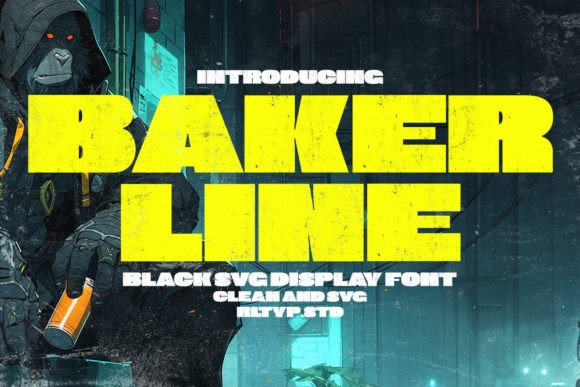
Bakerline Font: The Epitome of Boldness and Clarity
In the world of typography, fonts play a crucial role in conveying messages, expressing emotions, and creating a lasting impression. Among the numerous fonts available, Bakerline Font stands out for its boldness, clarity, and versatility. This sans serif typeface has been meticulously crafted to make a powerful statement, making it an ideal choice for designers, artists, and marketers. In this article, we’ll explore the features, benefits, and applications of Bakerline Font, and why it’s becoming a popular choice in the design community.
Design and Features
Bakerline Font is available in two striking variations: black and extra bold weights. This allows designers to choose the perfect level of boldness for their projects, ensuring that their message is conveyed with impact. The font’s sans serif design provides a clean and modern aesthetic, making it perfect for a wide range of applications, from digital media to print materials.
One of the unique features of Bakerline Font is its textured SVG and solid variations. The textured SVG version offers a dynamic, layered look, while the solid version provides a sleek, flat design. This versatility allows designers to experiment with different styles, ensuring that their project stands out from the crowd.
Inclusion of Lowercase Characters
Bakerline Font includes lowercase characters, which is a significant advantage for designers. The inclusion of lowercase letters ensures that the font can be seamlessly integrated into various creative projects, from body text to headings. This feature also makes it easier to use Bakerline Font in combination with other fonts, creating a cohesive and harmonious design.
Benefits of Using Bakerline Font
So, why should designers choose Bakerline Font for their projects? Here are some benefits of using this versatile typeface:
- Bold and Eye-Catching: Bakerline Font is designed to make a statement. Its bold and extra bold weights ensure that your message is conveyed with impact, grabbing the attention of your audience.
- Versatility: The font’s textured SVG and solid variations offer a range of design possibilities, allowing you to experiment with different styles and effects.
- Modern Aesthetic: Bakerline Font’s sans serif design provides a clean and modern look, making it perfect for contemporary designs, from websites to social media graphics.
- Easy Integration: The inclusion of lowercase characters ensures that Bakerline Font can be seamlessly integrated into various creative projects, providing a cohesive and harmonious design.
Applications of Bakerline Font
Bakerline Font is a versatile typeface that can be used in a wide range of applications, including:
- Digital Media: Use Bakerline Font to create striking social media graphics, blog posts, and website headers that grab attention and convey your message with impact.
- Print Materials: The font’s bold and extra bold weights make it perfect for print materials, such as posters, flyers, and brochures.
- Branding and Identity: Bakerline Font can be used to create a bold and memorable brand identity, from logos to business cards.
- Advertising: The font’s eye-catching design makes it perfect for advertising campaigns, from billboards to online ads.
Bakerline Font is a powerful and versatile typeface that offers a unique combination of boldness, clarity, and versatility. Its textured SVG and solid variations, along with its inclusion of lowercase characters, make it an ideal choice for designers and marketers looking to make a statement. Whether you’re working on a digital project or a print material, Bakerline Font is sure to provide a modern and dynamic aesthetic that grabs attention and conveys your message with impact.
- What is Bakerline Font? Bakerline Font is a sans serif typeface available in bold and extra bold weights, offering a striking and modern aesthetic.
- What are the different variations of Bakerline Font? Bakerline Font is available in two variations: textured SVG and solid.